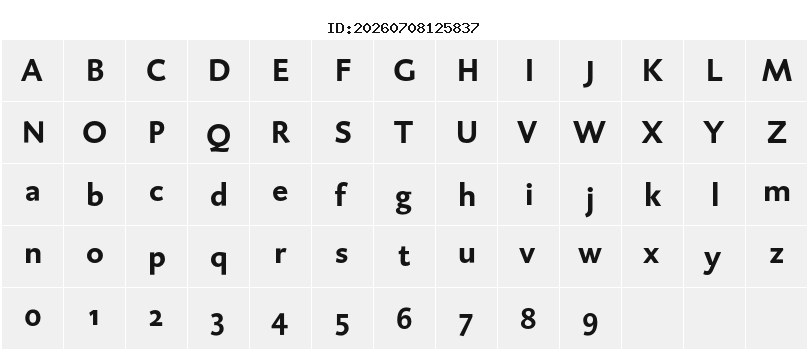
DTLCaspariST Preview
About DTLCaspariST.otf
DTLCaspariST.otf is a modern, elegant sans-serif font designed for ultimate readability and visual harmony. Perfect for branding, headlines, web design, and print materials.